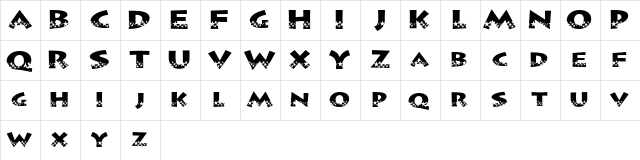
Complete 5 Starbound DNA Regular glyph index. Displaying only characters natively supported by 5 Starbound DNA Regular font.
5 Starbound DNA is a composed and adaptable typeface that performs quietly and consistently across a wide range of design contexts.